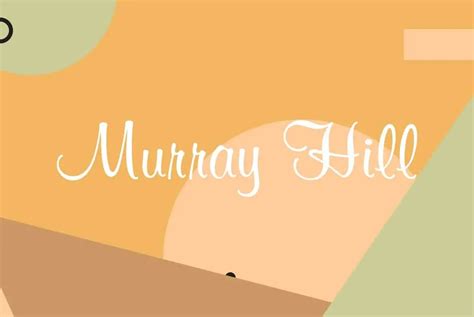
Murray Hill Font. Web murray hill is a chic and versatile handwritten font that has a vintage and casual style. It will make your designs.
It will make your designs. Web murray hill is a chic and versatile handwritten font that has a vintage and casual style.
Web murray hill is a chic and versatile handwritten font that has a vintage and casual style. Web murray hill is a chic and versatile handwritten font that has a vintage and casual style. It will make your designs.